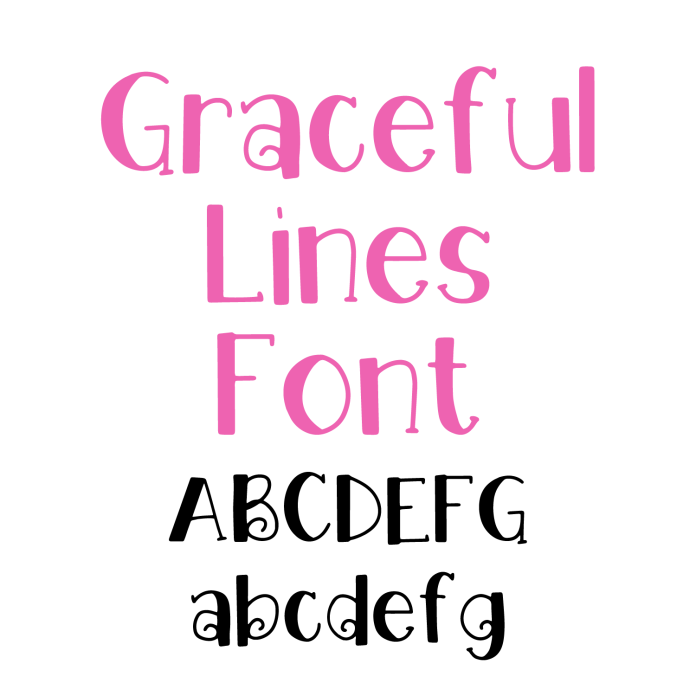
Introducing Graceful Lines Font—a cute, handwritten font with a clean and modern feel, perfect for all your crafting and DIY projects! With its neat strokes and friendly style, Graceful Lines adds a personal touch to labels, planner pages, greeting cards, stickers, and home decor designs. This versatile handwritten typeface is designed to cut smoothly on your cutting machine, making it ideal for both printables and vinyl projects. Whether you're creating custom gifts or digital artwork, Graceful Lines Font brings charm and clarity to every creation. Download today and add this stylish, easy-to-read handwriting font to your creative toolbox!